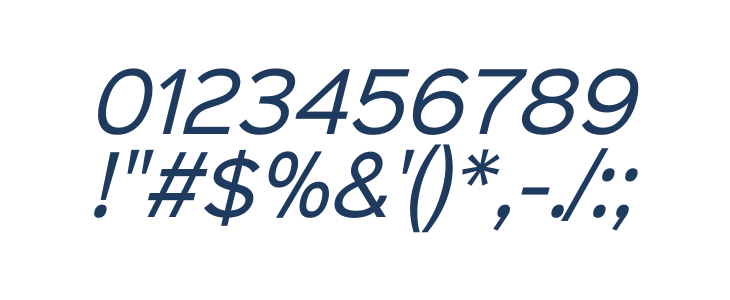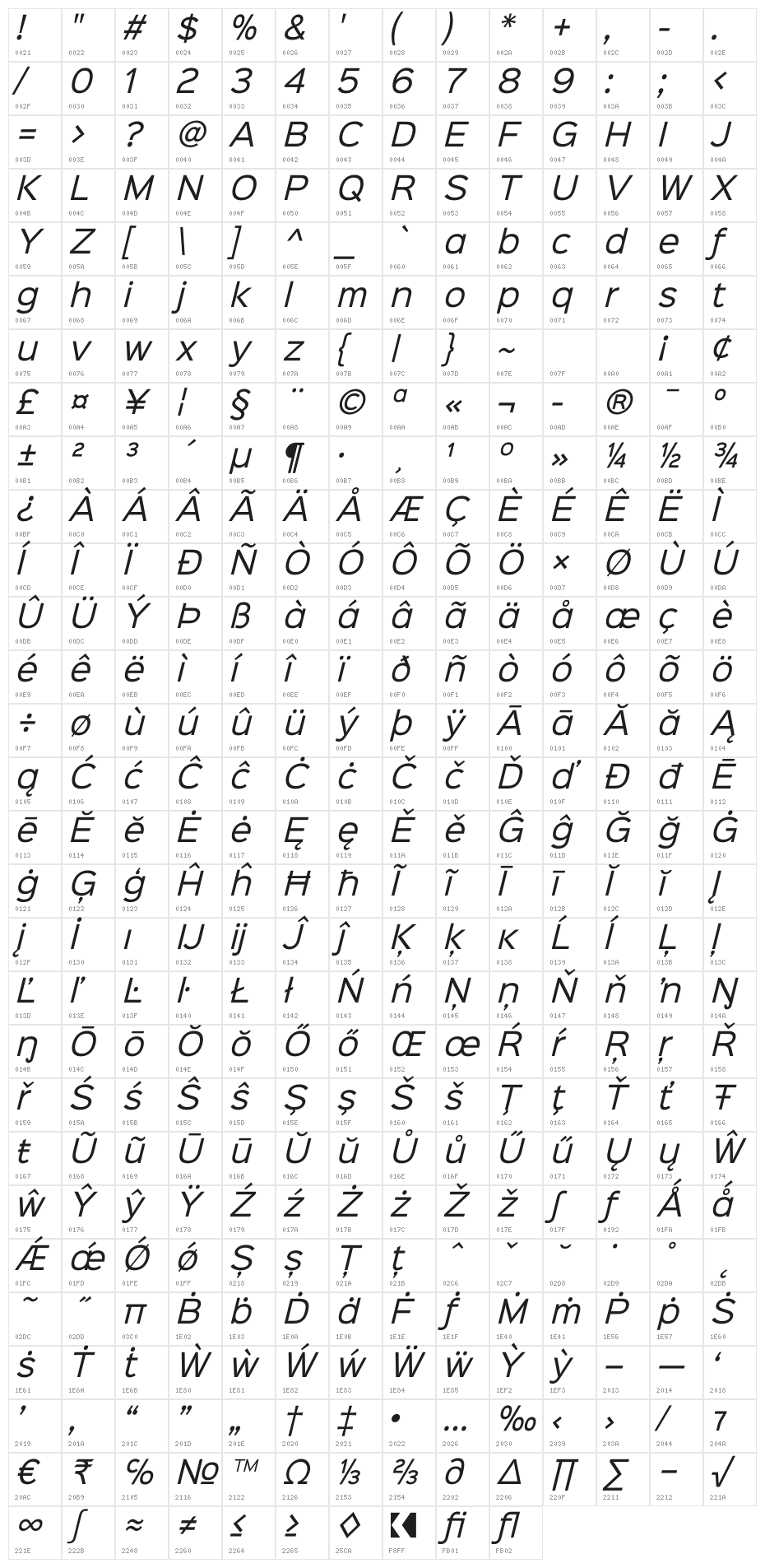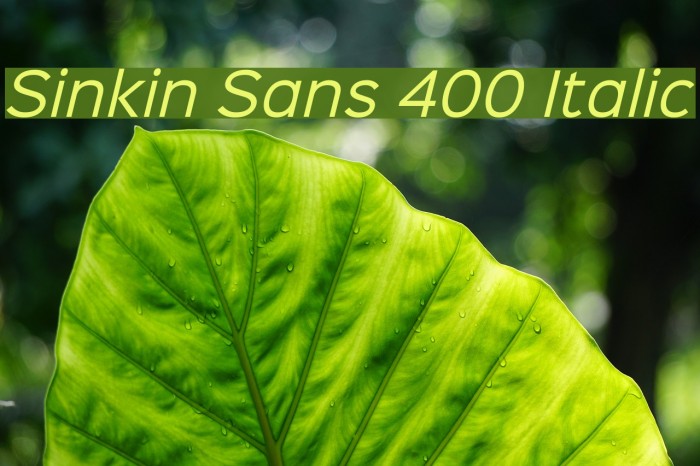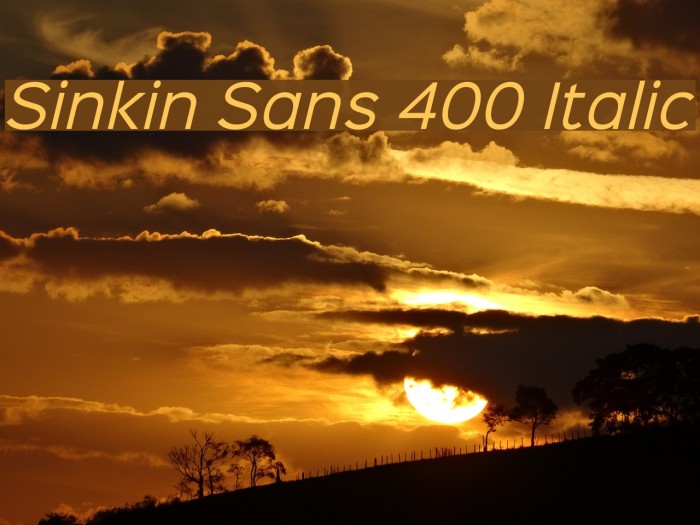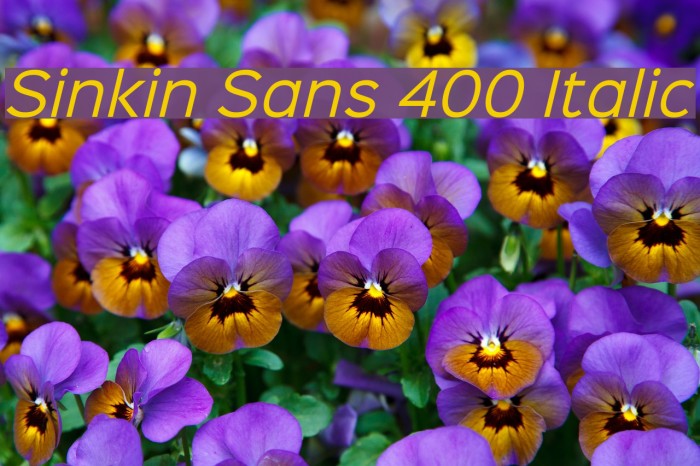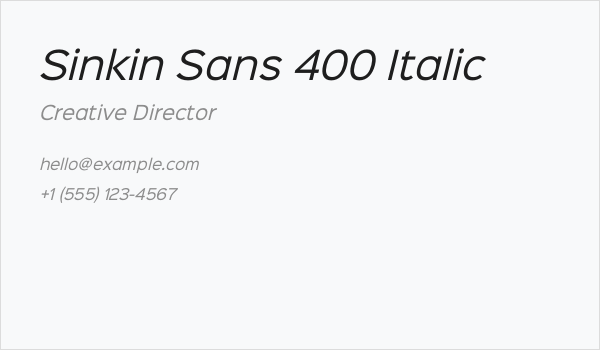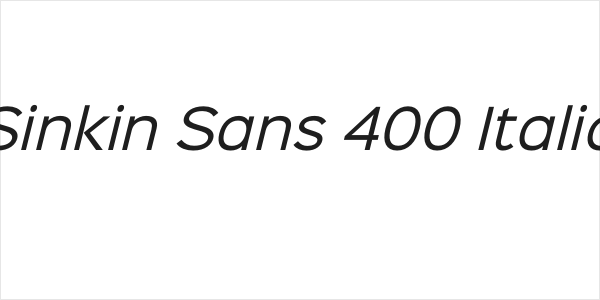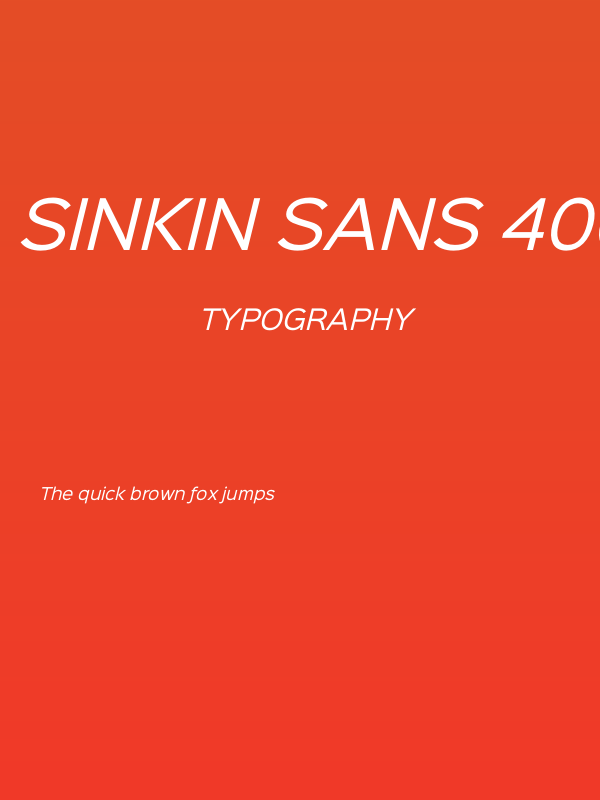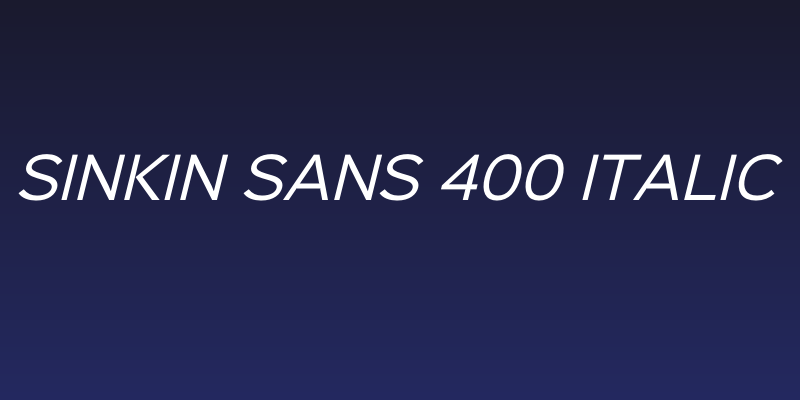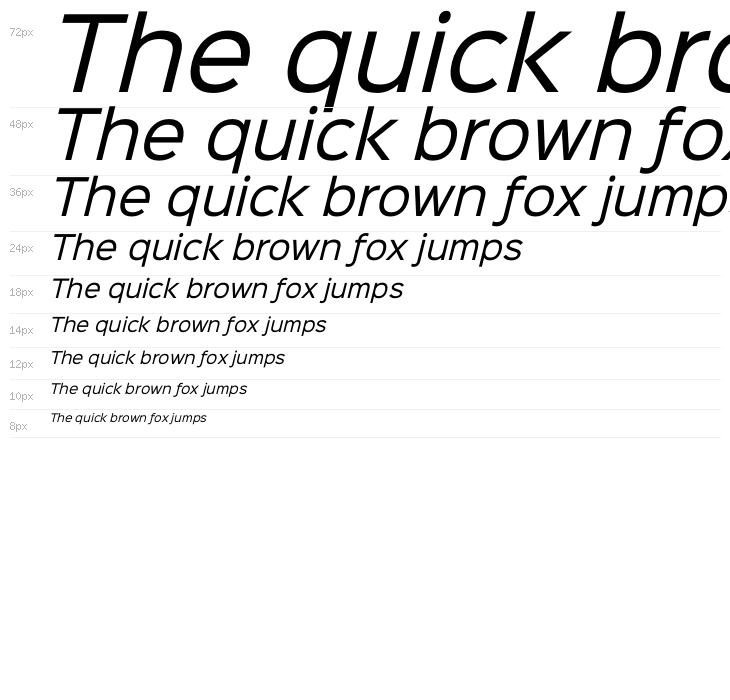
Sinkin Sans 400 Italic Font
Sinkin Sans 400 Italic Description
This font exhibits a clean and modern sans-serif style with a subtle italic slant, giving it a dynamic and contemporary appearance. The characters are well-proportioned with smooth curves and straight lines, creating a harmonious balance. The uppercase letters are bold and assertive, while the lowercase letters maintain a friendly and approachable feel. Numbers are clear and easy to read, making them suitable for various applications. The special characters are distinct and well-integrated into the overall design. This font's simplicity and elegance make it versatile for both digital and print media.
| Proposed Projects | Ideal for branding, web design, advertising, and editorial projects where a modern and clean aesthetic is desired. |